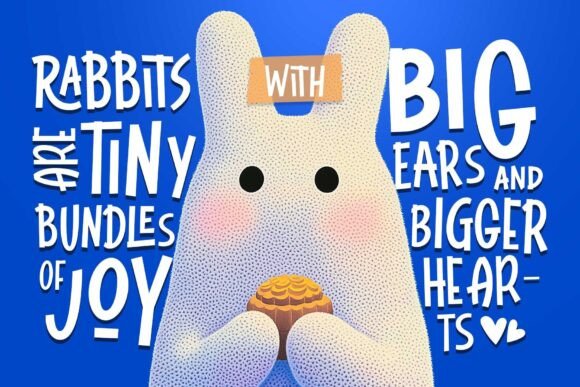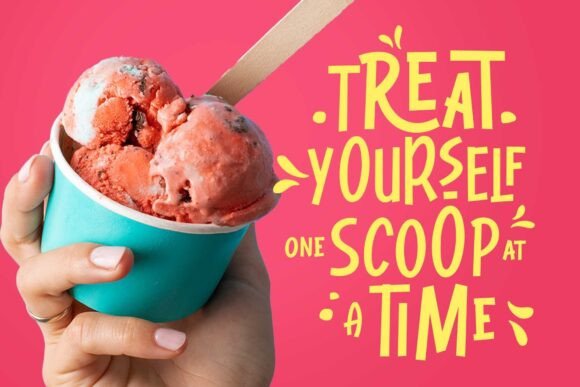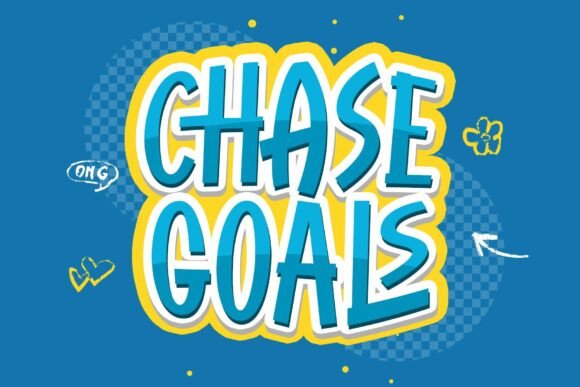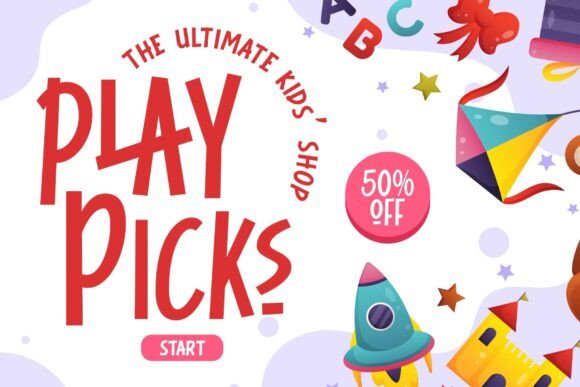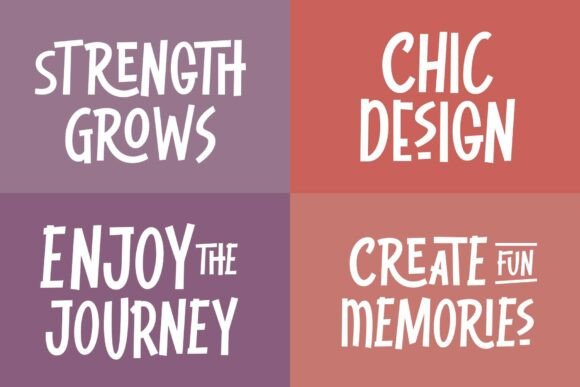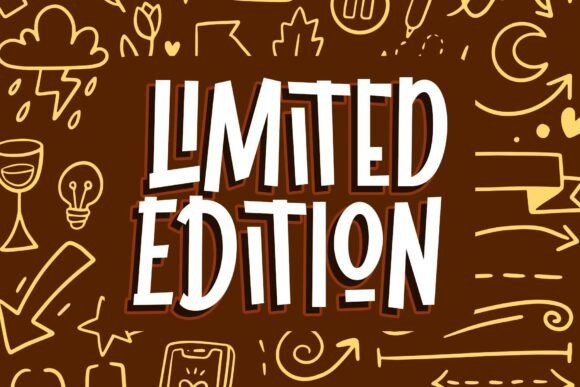
Introduction to Romelly Letters Font
Spread cheer and joy to the world with Romelly Letters, a playful handwritten font featuring a variety of ligatures and stylistic alternates.
Designed with a childlike charm, a slim and tall shape, this font exudes personality, making it perfect as a display font Ideal for charming designs like books, stickers, kids’ apparel, packaging, labels, posters, toys, and so much more.
Key Features of Romelly Letters Font